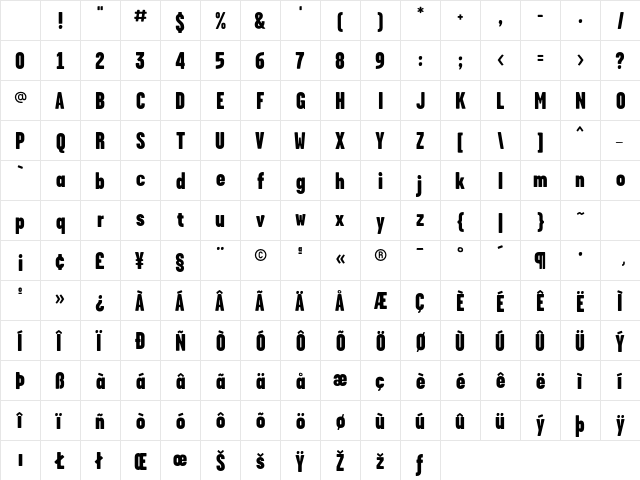
Garage Gothic FB Black takes a clean, functional approach - its unadorned letterforms prioritise legibility and work reliably across screen and print environments.
Font Pairing: Works well alongside a characterful serif or display font that can carry the expressive load while Garage Gothic FB Black handles the functional copy.
Pro Tip: Use Garage Gothic FB Black for UI labels, navigation, and short-form body copy where clean legibility is the priority.